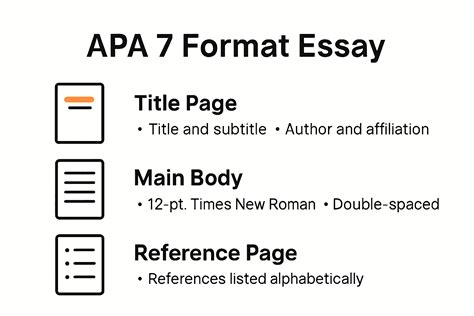
When it comes to academic writing, adhering to specific formatting guidelines is crucial. One of the most commonly used styles is the American Psychological Association (APA) format. APA style provides clear rules for formatting papers, including the choice of font. Understanding what font is APA approved can help ensure your academic work meets the required standards. This guide will delve into the specifics of APA font requirements, provide tips for formatting your documents, and offer insights into why these guidelines are important.
Understanding APA Font Requirements
The APA style guide specifies that the font used in academic papers should be clear and easy to read. The recommended font is Times New Roman, set at 12 points. This font is widely accepted because it is legible and professional, making it suitable for academic writing. However, other fonts can be used as long as they meet certain criteria.
If you are wondering what font is APA acceptable beyond Times New Roman, the APA style guide allows for other fonts as long as they are serif fonts and are easily readable. Serif fonts have small lines or strokes at the ends of characters, which can enhance readability. Some acceptable alternatives include:
- Calibri (11 points)
- Arial (11 points)
- Georgia (11 points)
- Lucida Sans Unicode (10 points)
- Computer Modern (10 points)
It is essential to ensure that the font size is consistent throughout the document. The APA style guide recommends a font size of 12 points for the main text, but smaller sizes are acceptable for footnotes and figure captions.
Formatting Your APA Document
In addition to choosing the right font, there are several other formatting guidelines to follow when creating an APA-style document. These guidelines ensure consistency and professionalism in academic writing.
Here are some key formatting tips:
- Margins: Use 1-inch margins on all sides of the page.
- Spacing: Double-space the entire document, including the title page, abstract, body, references, and any appendices.
- Indentation: Indent the first line of each paragraph by 0.5 inches. This is typically done using the "Tab" key.
- Headings: Use clear and concise headings to organize your paper. APA style provides specific formatting for different levels of headings.
- Page Numbers: Include a page number in the upper right corner of every page. The title page should be numbered as page 1.
Here is an example of how to format the title page of an APA document:
| Element | Formatting |
|---|---|
| Title | Centered, bold, and in title case. Use 12-point font. |
| Author's Name | Centered, below the title. Use 12-point font. |
| Institutional Affiliation | Centered, below the author's name. Use 12-point font. |
| Course Number and Name | Centered, below the institutional affiliation. Use 12-point font. |
| Instructor's Name | Centered, below the course information. Use 12-point font. |
| Due Date | Centered, below the instructor's name. Use 12-point font. |
Ensure that all elements are double-spaced and that the title page does not include a running head or page number.
Why APA Font and Formatting Guidelines Matter
The APA style guide provides a standardized format for academic writing, ensuring consistency and professionalism. Adhering to these guidelines is crucial for several reasons:
- Clarity and Readability: APA guidelines ensure that academic papers are clear and easy to read. The use of a consistent font and spacing helps maintain readability, making it easier for readers to follow the content.
- Professionalism: Following APA formatting guidelines demonstrates a commitment to academic standards and professionalism. This is particularly important for students and researchers who aim to publish their work in academic journals.
- Consistency: APA style provides a uniform format for academic writing, making it easier for readers to navigate and understand the structure of the paper. This consistency is essential for maintaining the integrity of academic research.
- Credibility: Adhering to APA guidelines enhances the credibility of the research. It shows that the author has taken the time to follow established standards, which can increase the trustworthiness of the findings.
By understanding what font is APA approved and following the formatting guidelines, you can ensure that your academic work meets the required standards and is well-received by your audience.
📝 Note: Always double-check the latest edition of the APA style guide for any updates or changes to the formatting guidelines.
In addition to the font and formatting guidelines, it is essential to pay attention to the structure of your APA document. The structure typically includes the following sections:
- Title Page: Includes the title of the paper, the author's name, institutional affiliation, course number and name, instructor's name, and due date.
- Abstract: A brief summary of the research, typically 150-250 words. It should include the purpose of the study, methods, results, and conclusions.